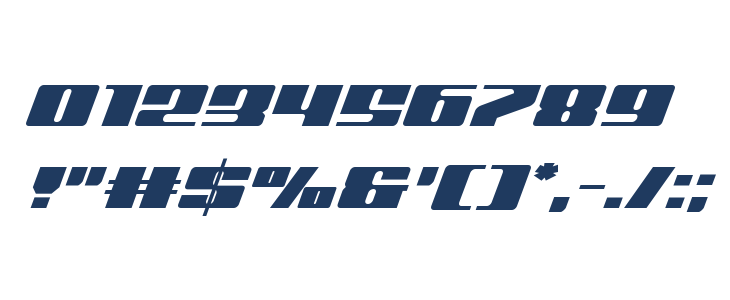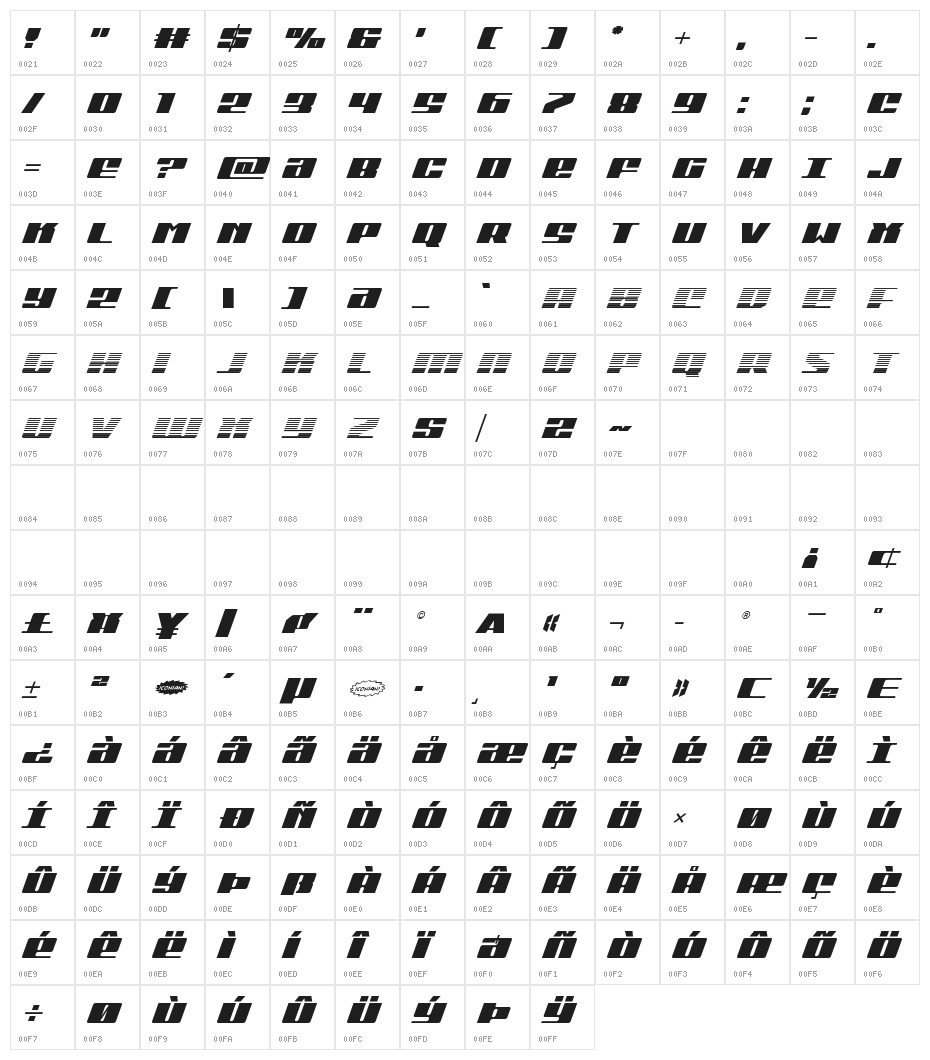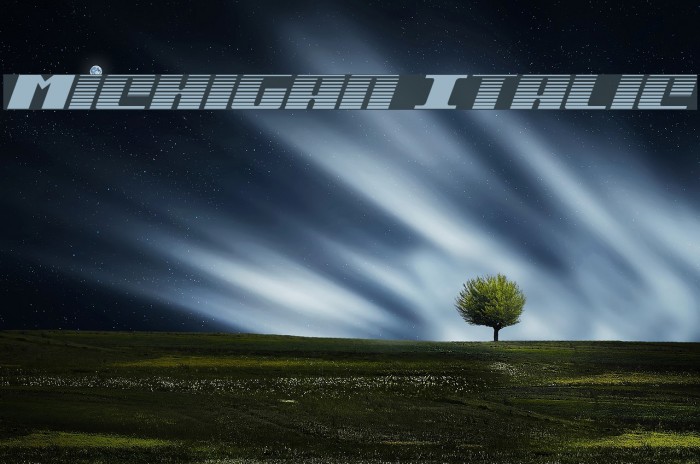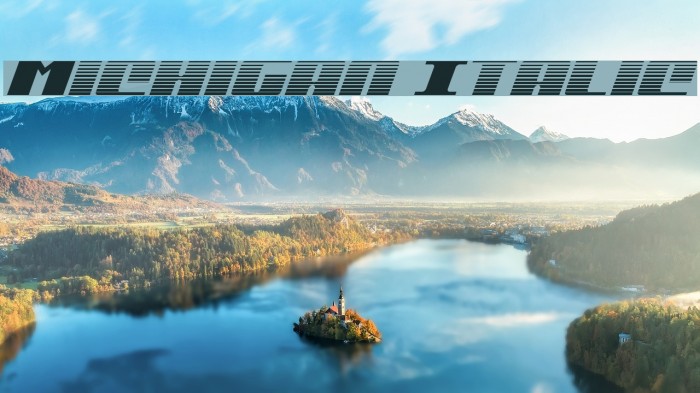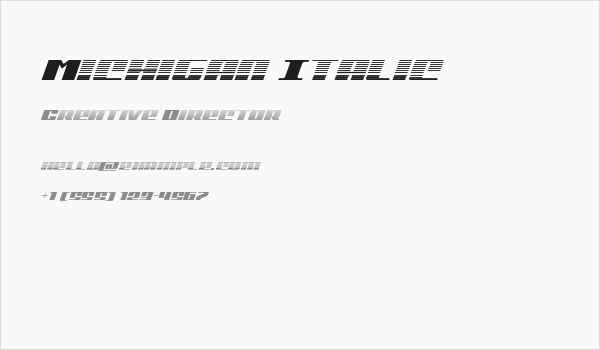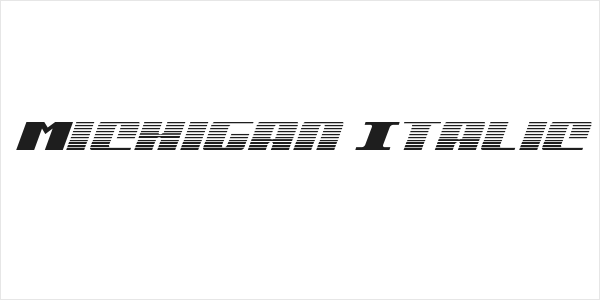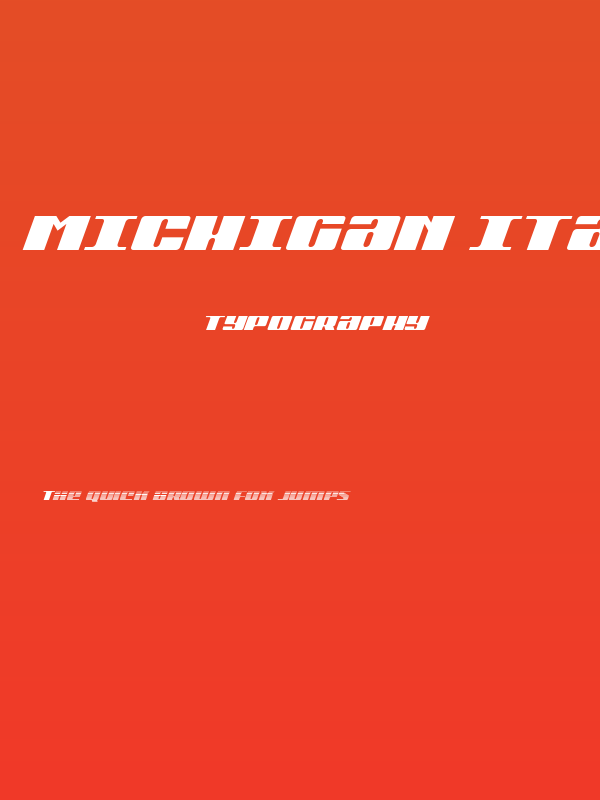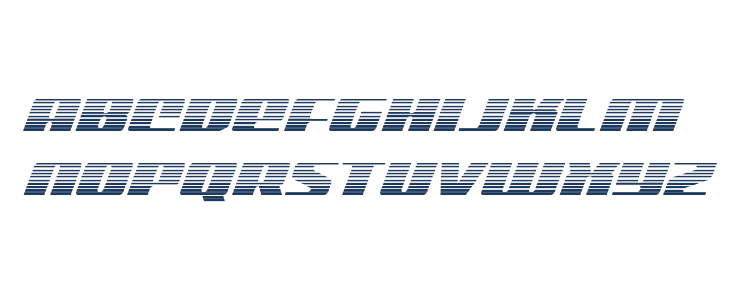
Michigan Italic Font
Michigan Italic Description
This font features a bold and dynamic style with a strong italic slant, giving it a sense of motion and energy. The characters are wide and have a distinct block-like appearance, with sharp angles and clean lines. The uppercase letters are particularly striking, with a futuristic and sporty feel. The lowercase letters maintain the same boldness and angularity, ensuring consistency throughout. The numbers are equally bold and follow the same design principles, making them highly legible. Special characters are included, maintaining the overall aesthetic with a modern twist. This font is ideal for projects that require a bold statement and a modern, energetic vibe.
| Proposed Projects | Ideal for sports branding, dynamic posters, modern logos, and high-impact headlines. |